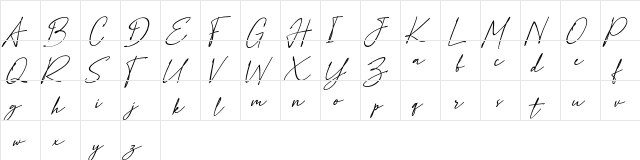
Ratna FREE Regular
Design Context for Ratna FREE Typeface
Ratna FREE is a composed and adaptable typeface that performs quietly and consistently across a wide range of design contexts.